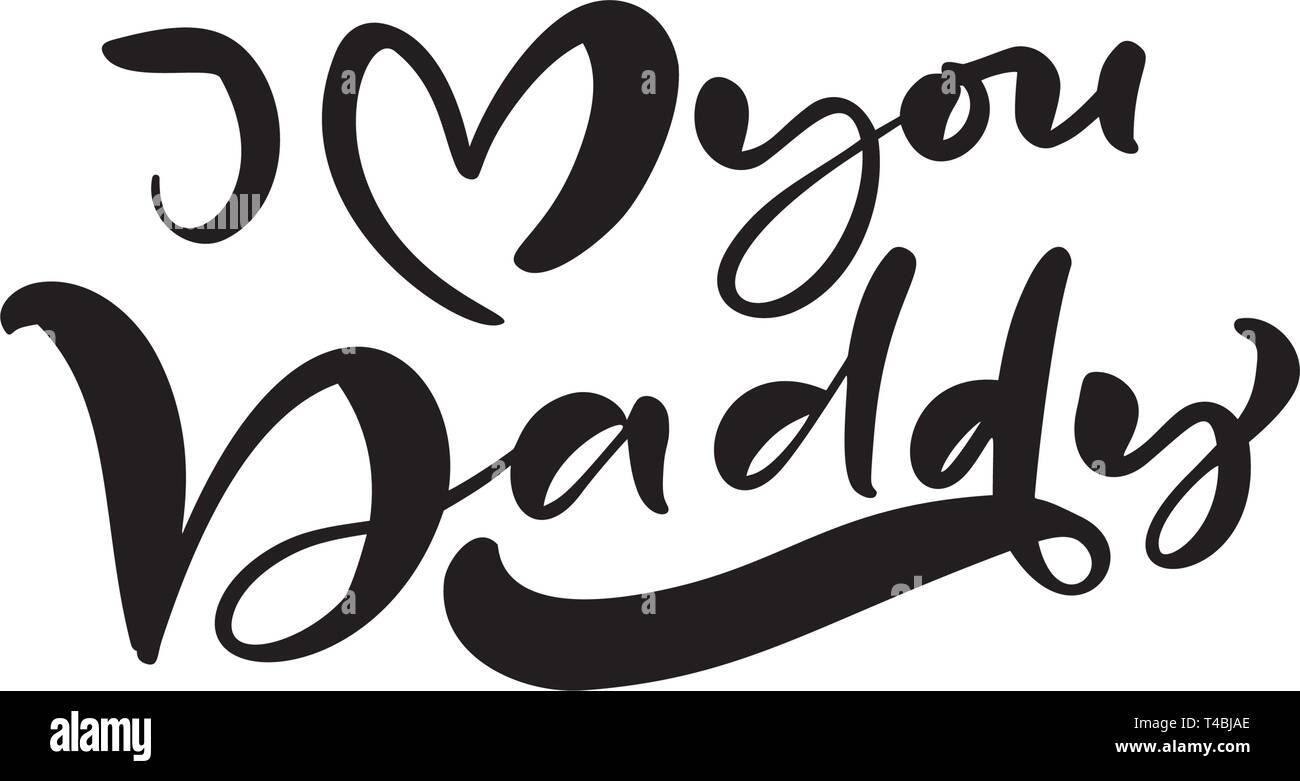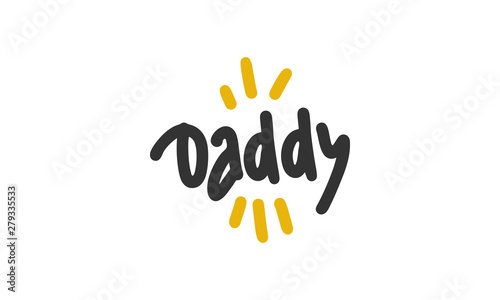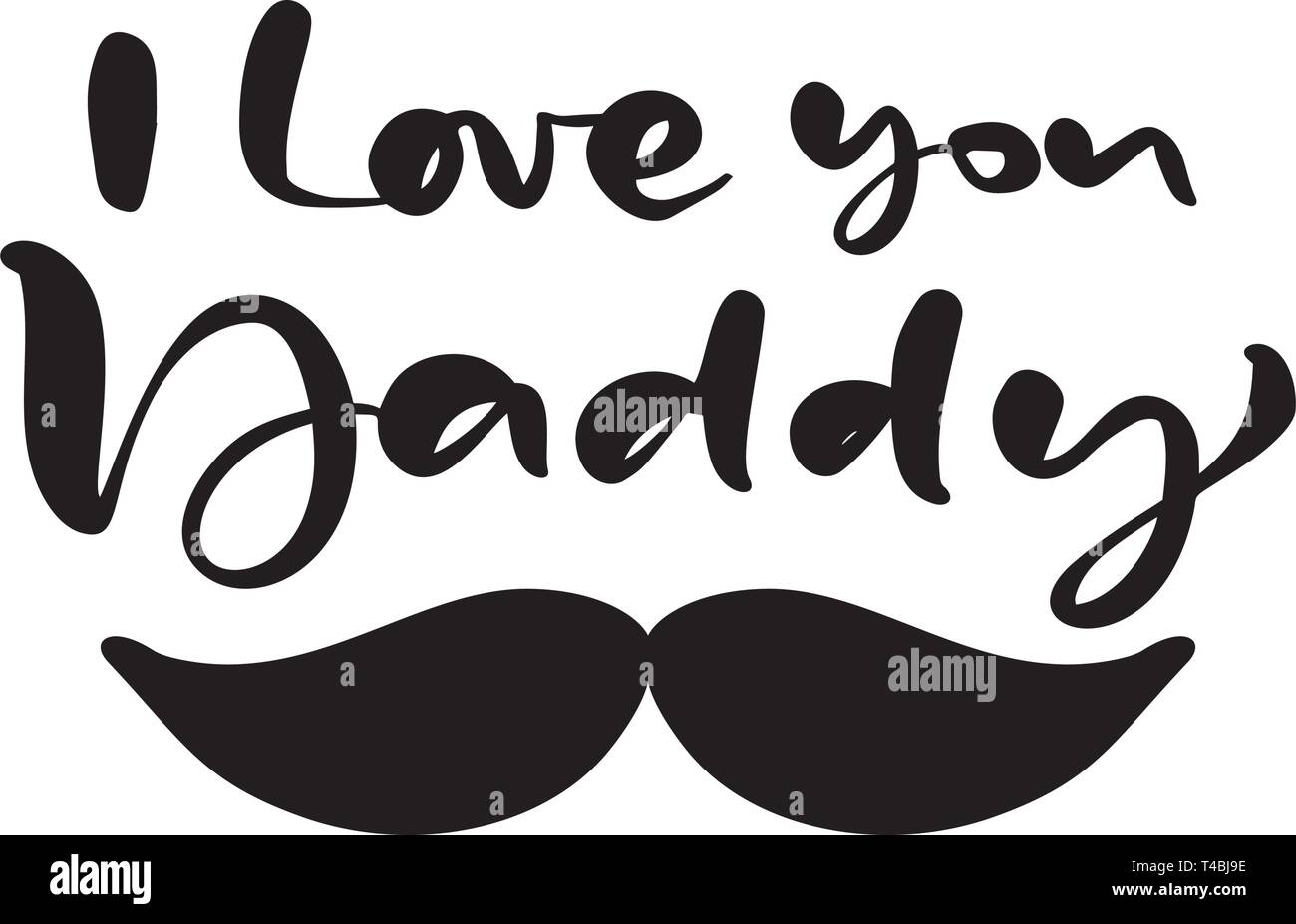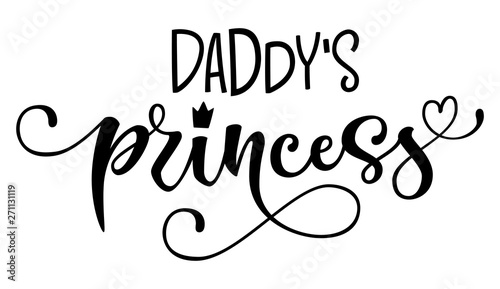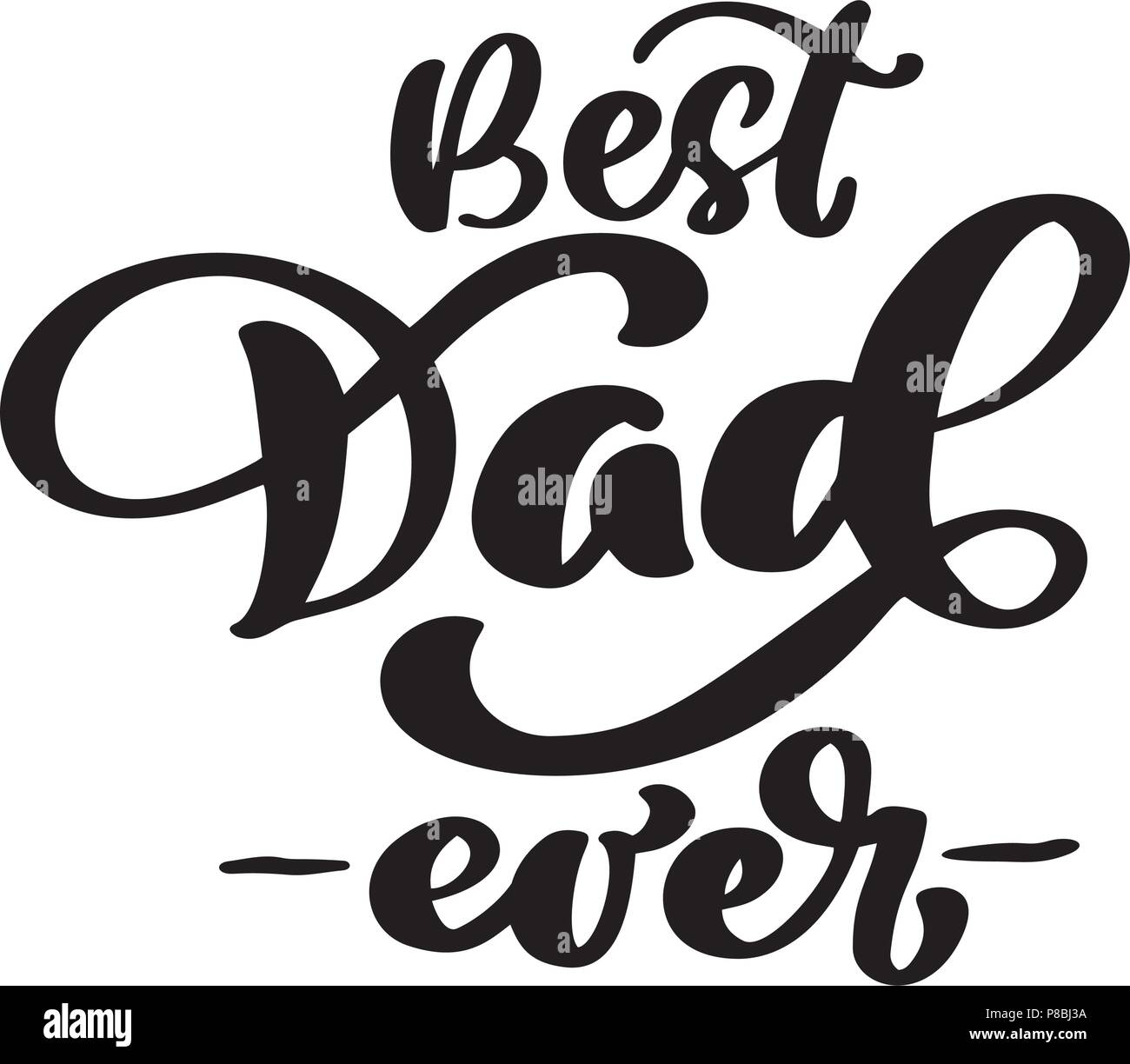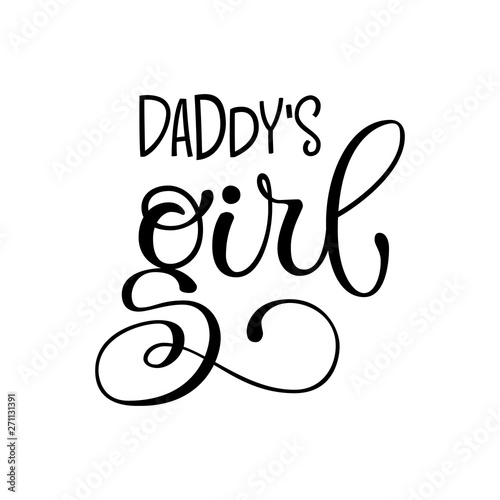
All lowercase letters include ending swashes and alternative font. So boogie on take it back to your crib and get down with it.
This is a fun and playful font.
Sugar Daddy is a modern calligraphy with beginning and ending swashes font. Whether youre looking for fonts for Instagram or calligraphy scripts for DIY projects Daddy and Mommy will turn any creative idea into a true piece of art. 1 matching request on the forum.
Hand-lettered is the style where you draw each letter individually as opposed to writing them as in cursive or calligraphy. The different text fonts are all a part of the Unicode standard which means that theyre not like normal. Size Daddy by Ann Bennett.
This shaded slab serif was made by conforming several different cuts of the styles filling out the character set and adding a few. This font is used only for demos Demo license. He always prided himself on his fine penmanship and to see him write was kind of like watching a ballroom dance--his pen would smoothly and elegantly waltz across the paper as he wrote gliding effortlessly.
It features gorgeous swashes and ligatures that make this script incredibly versatile. Download them for use in your digital products for Android iOS and web. Daddy is a font from designer Scott Cohn that was created for his childrens books Daddy Sat On A Duck Daddy Said A Word I Never Heard.
The film title on the poster uses Knockout No. Bright Daddy Font Dec 7 2020 Hello world. About This Font Family Daddys Hand is based on the actual handwriting of my dad.
This is Bright Daddy Typeface simple and easy to create awesome lettering just type your words and then you will immediately see the great results. Submit a font Tools. Hand lettering is an art form that takes practice and discipline and can mimic calligraphy or other styles.